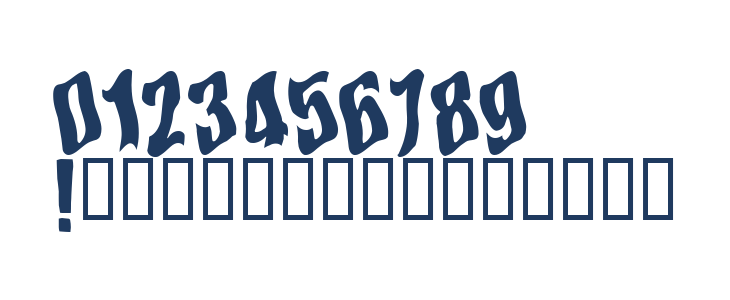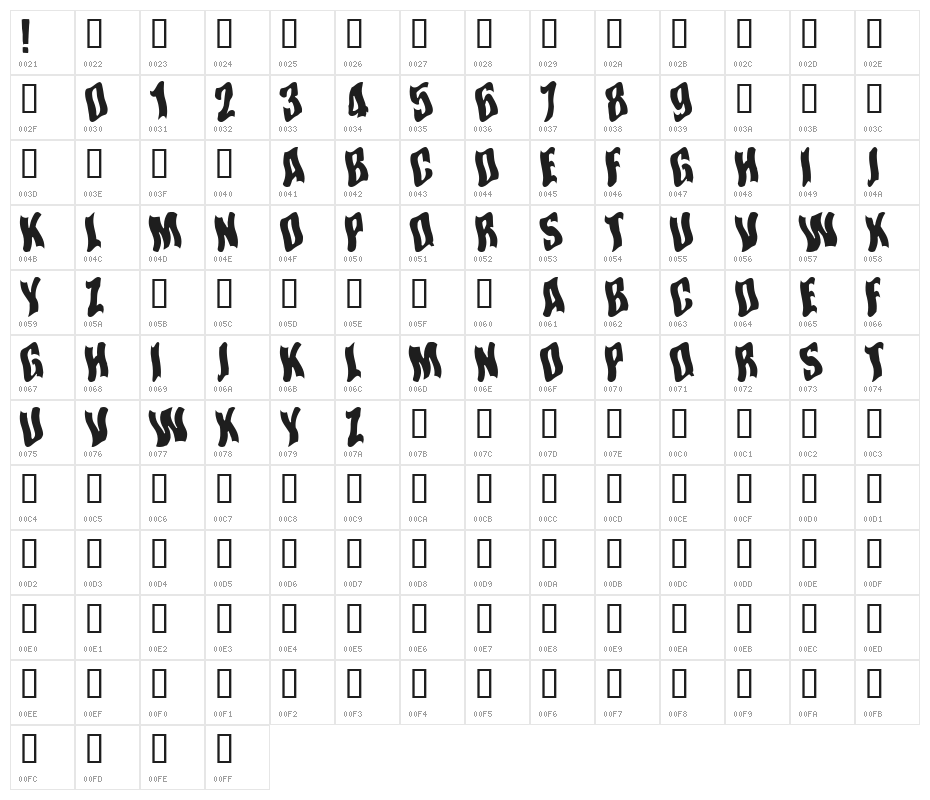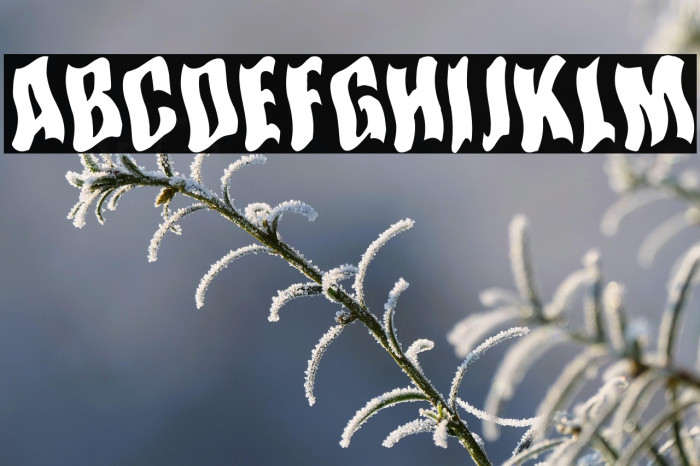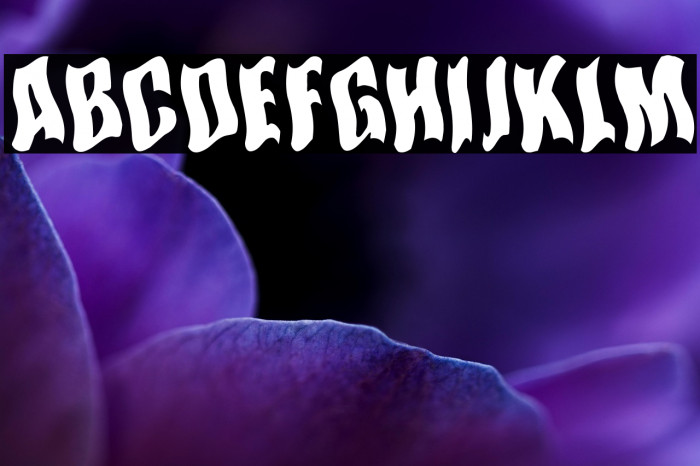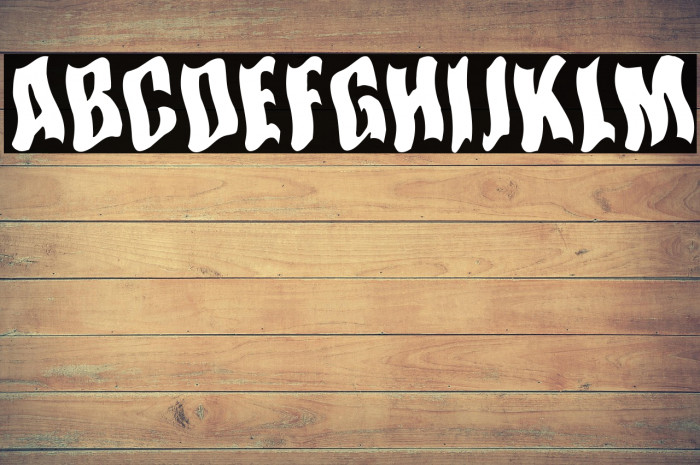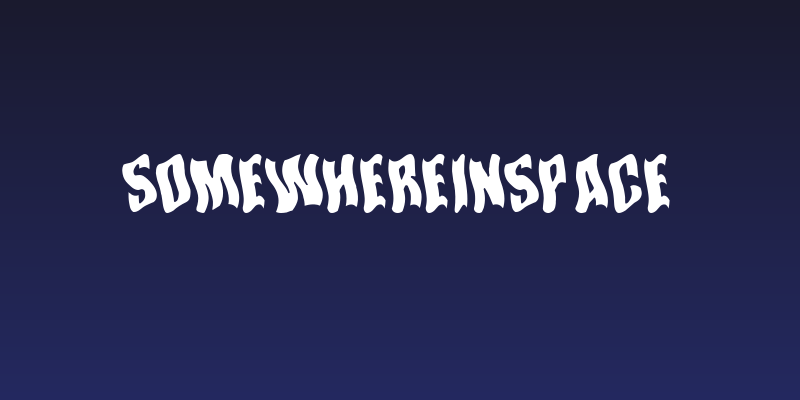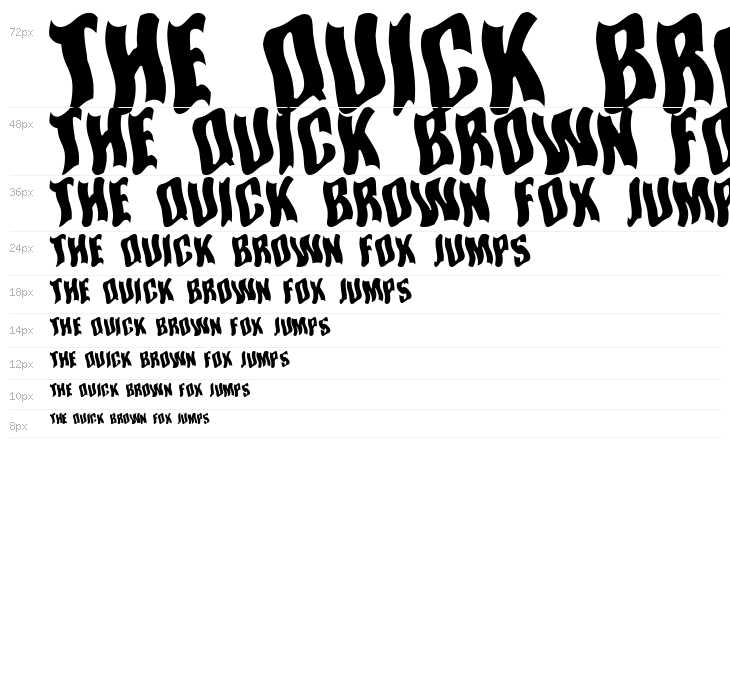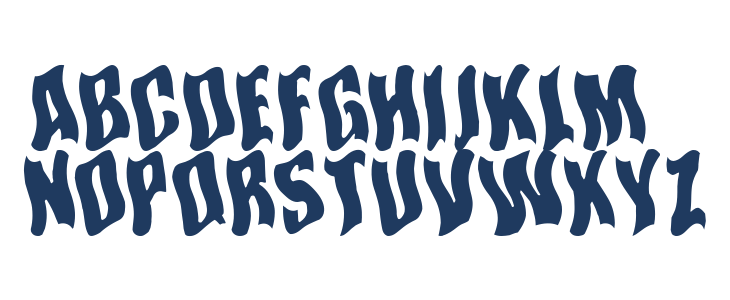
SomewhereInSpace Font
This font features a bold and dynamic style with a distinctive, slightly distorted appearance. The characters are thick and have an irregular, wavy outline that gives them a unique, eye-catching look. The uppercase and lowercase letters maintain a consistent style, with exaggerated curves and sharp edges that create a sense of movement. The numbers and special characters follow the same design principles, ensuring uniformity across all glyphs. This font is ideal for projects that require a strong visual impact and a touch of creativity.
| Overall Style | Modern, Artistic |
| Proposed Projects | Perfect for posters, album covers, branding, and any project needing a bold, artistic touch. |